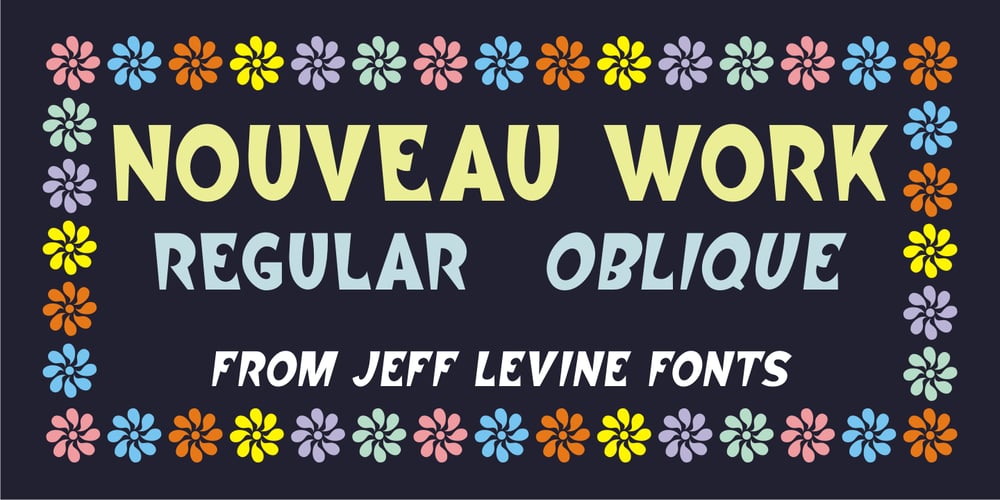
Nouveau Work JNL Font Family was designed by Jeff Levine and published by Jeff Levine. Nouveau Work JNL contains 2 styles and family package options. Based on the sheet music title lettering for Al Jolson’s 1920 song “Grieving for You”, the casual style of Nouveau Work JNL is available in both regular and oblique versions.